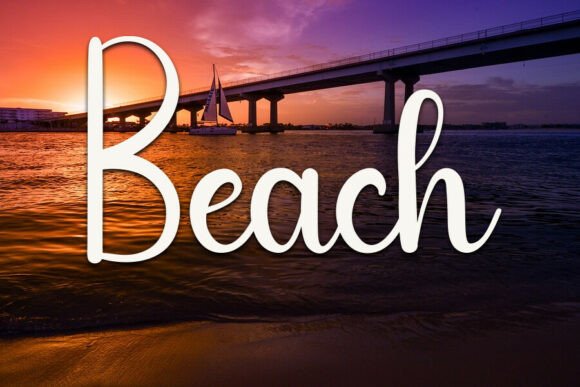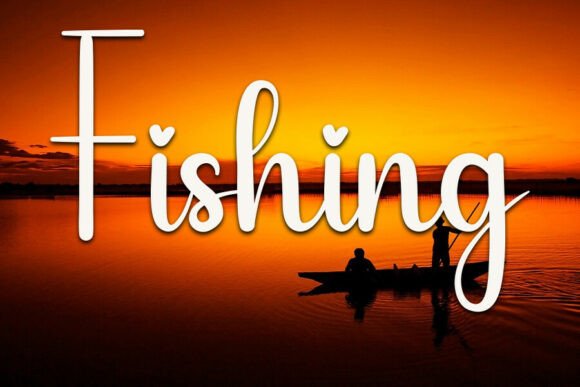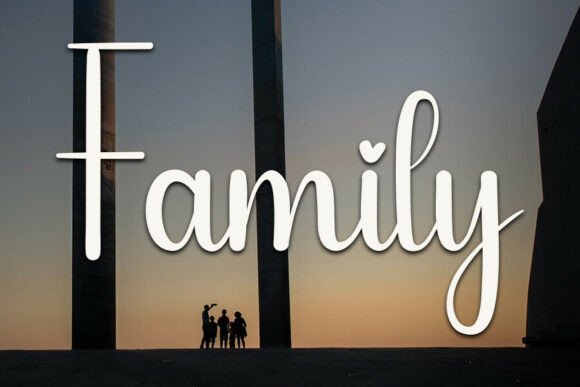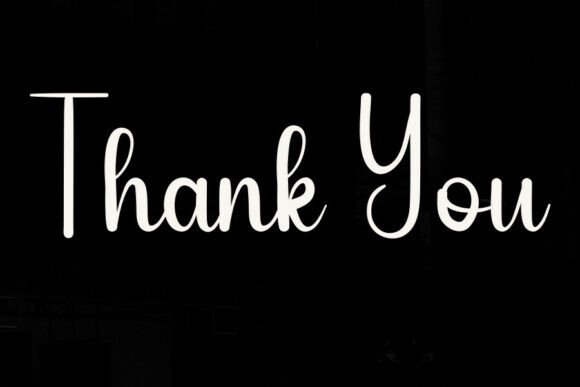
I still remember the frustration of working on a project, hours spent crafting the perfect design, only to realize that the font I was using just wasn’t cutting it. The client wanted something elegant, artistic, and modern, but I was stuck with a bland, generic font that lacked personality. It was then that I stumbled upon the Believe Font – a stylish script font that exudes artistic flair and contemporary elegance.
First Impressions: A Love Affair with Believe Font
As soon as I laid eyes on Believe Font, I knew I had found what I was looking for. Its fluid brush strokes, dynamic curves, and expressive letterforms captured the essence of hand-painted calligraphy with a modern twist. It’s the perfect combination of artistic flair and sophistication, making it ideal for logos, invitations, packaging, and social media graphics.
An Honest Review: The Good, the Bad, and the Quirky
- ✨ Unique and artistic design: Believe Font stands out from the crowd with its distinctive brush strokes and elegant letterforms.
- ✅ Highly versatile: This font can be used for a wide range of design projects, from logos and invitations to packaging and social media graphics.
- 💫 Easy to read: Despite its artistic nature, Believe Font remains highly legible, making it perfect for body text and headlines.
- 🎨 Customizable: With its OpenType features and glyphs, Believe Font offers a range of customization options to suit your design needs.
Small Quirks and Limitations:
While Believe Font is an excellent choice for many design projects, there are a few quirks to be aware of:
- 🤔 Limited use for body text: While Believe Font is easy to read, its artistic nature makes it less suitable for long blocks of body text.
- ⚠️ Requires careful kerning: As with any script font, Believe Font requires careful kerning to ensure that the letters flow smoothly.
The Designer Inspiration Behind Believe Font:
Believe Font was inspired by the world of hand-painted calligraphy, where artists use brushes and ink to create beautiful, one-of-a-kind pieces. The font’s creator wanted to capture the essence of this art form and bring it to the digital world, where designers could use it to add a touch of elegance and sophistication to their designs.
| What is Believe Font? | Believe Font is a stylish script font that exudes artistic flair and contemporary elegance, featuring fluid brush strokes, dynamic curves, and expressive letterforms. |
| What can I use Believe Font for? | Believe Font is ideal for logos, invitations, packaging, and social media graphics, adding a creative and sophisticated touch to any design. |
| Is Believe Font easy to read? | Yes, Believe Font is highly legible, making it perfect for headlines and short blocks of text. |
| Can I customize Believe Font? | Yes, Believe Font offers a range of OpenType features and glyphs, allowing you to customize the font to your liking. |